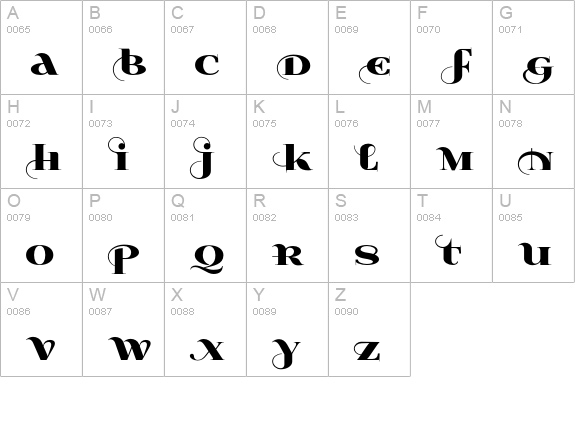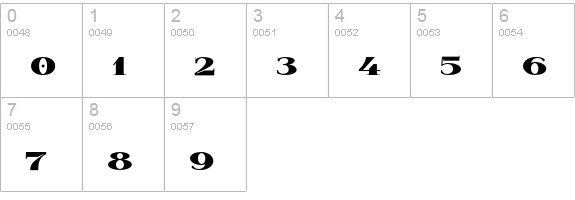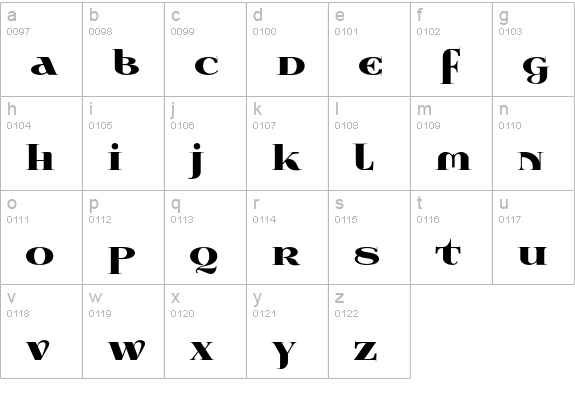
Wabroye Font Details
Introducing Wabroye, a stunning font that combines elegance and versatility to bring your designs to life. With its unique and eye-catching letterforms, Wabroye is sure to make a lasting impression on any project. Wabroye is perfect for a wide range of design purposes, from branding and packaging to headlines and signage. Its clean lines and balanced proportions make it easy to read and highly legible, ensuring that your message is conveyed with clarity and style. One of the standout features of Wabroye is its extensive character set, which includes uppercase and lowercase letters, numerals, punctuation marks, and special symbols. This font also offers multiple stylistic alternates and ligatures, allowing you to add a touch of creativity and customization to your designs. But what makes Wabroye truly special is that it is available for free download at FontsMarket.com. Yes, you read that right – this incredible font can be yours without spending a dime. FontsMarket.com is a trusted platform for font enthusiasts, offering a wide range of high-quality fonts that are freely available for personal and commercial use. So why wait? Download Wabroye today and elevate your designs to new heights. Whether you're a graphic designer, a photographer, a blogger, or anyone in need of a standout font, Wabroye is the perfect choice. Experience the beauty and versatility of Wabroye font and let your creativity soar.